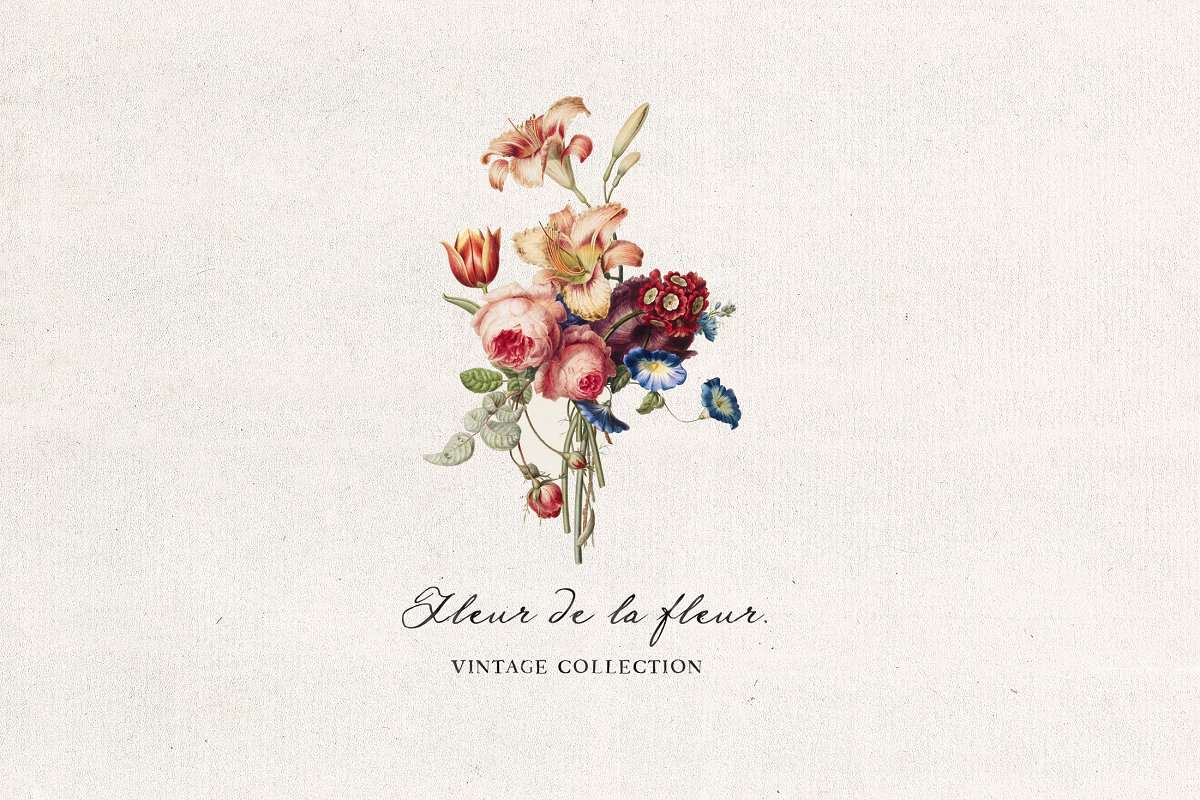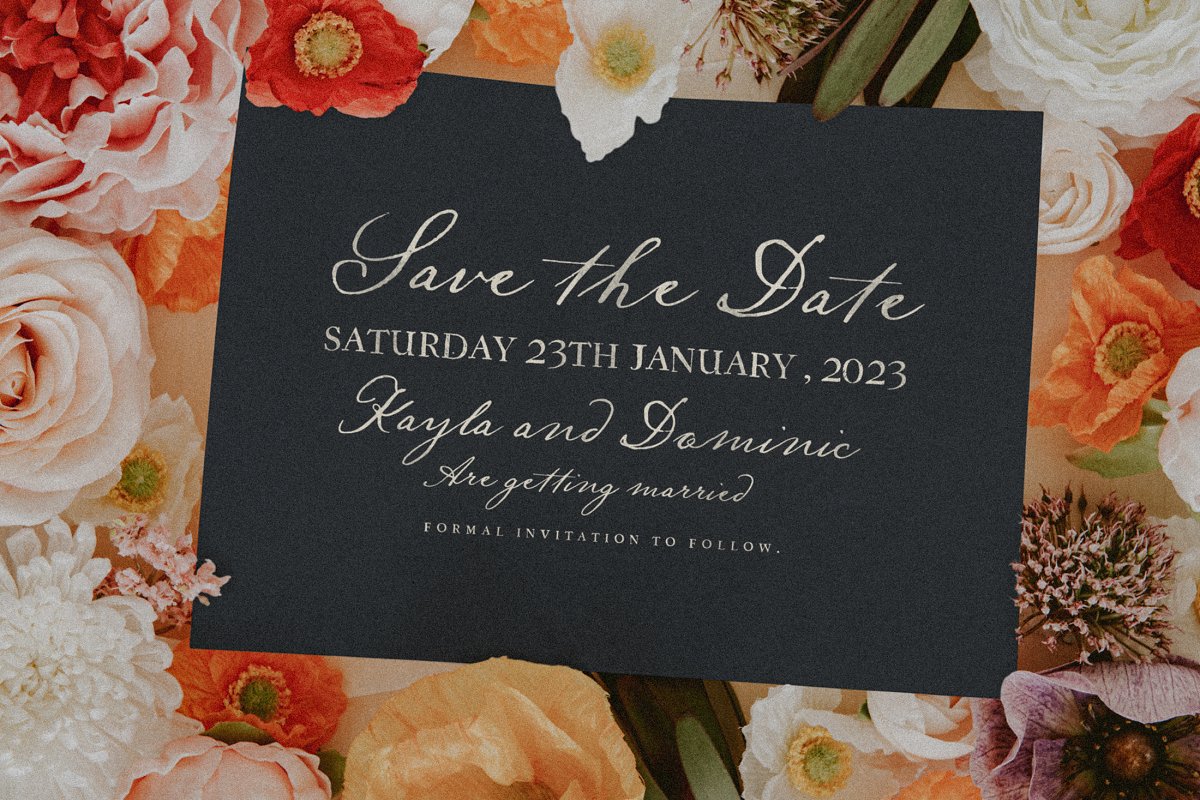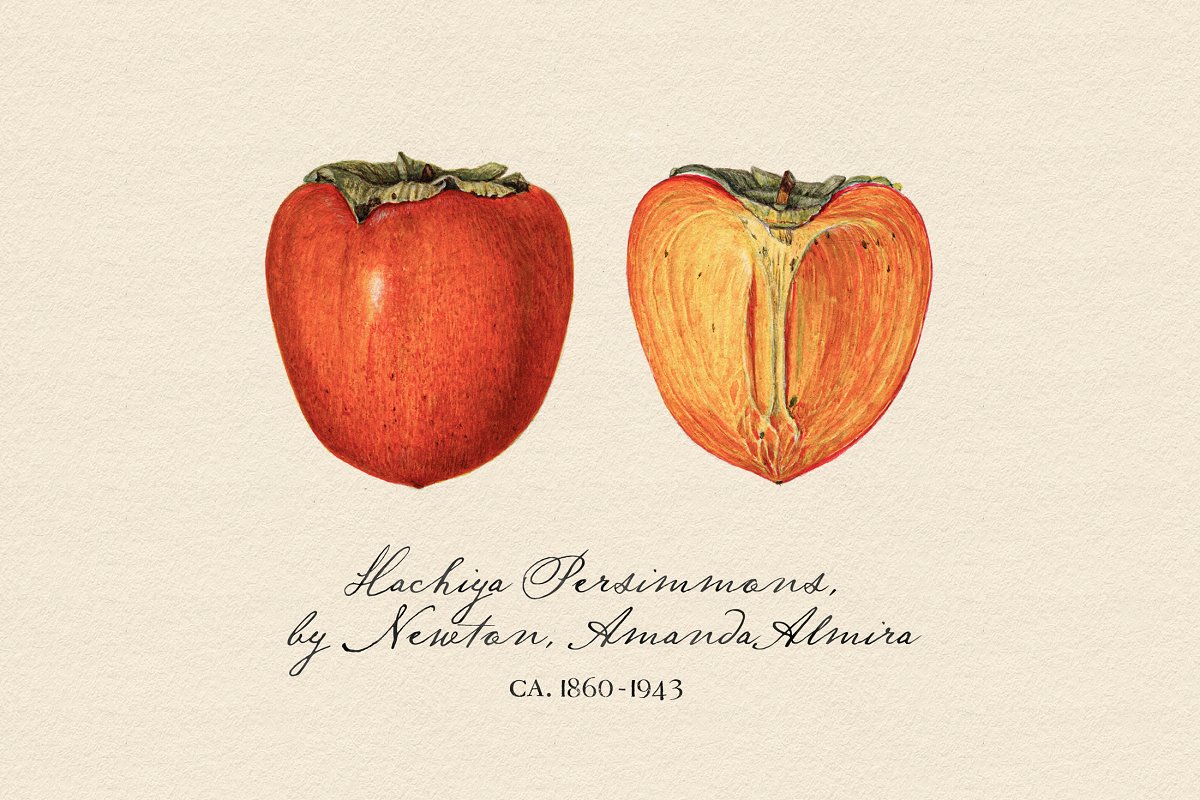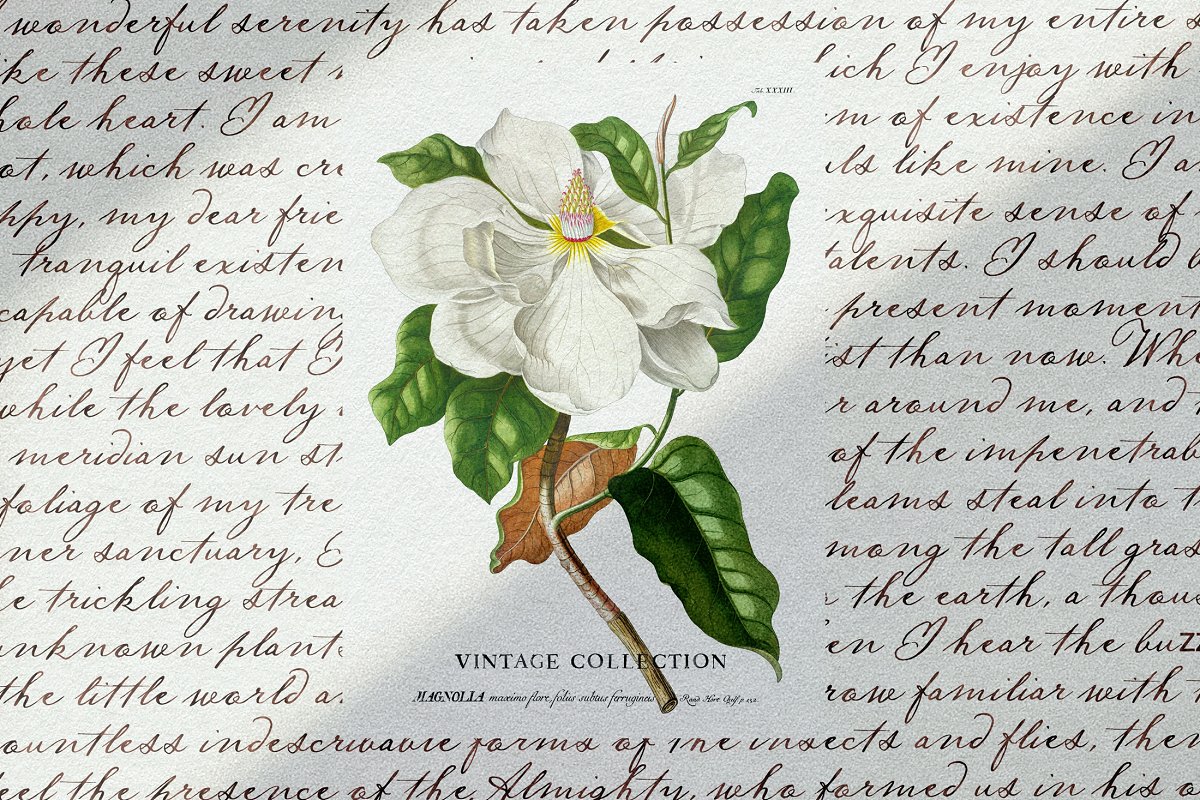
About the Nightingale Script Font
Say hello to Nightingale Script – an intentionally imperfect, antique script based on old manuscripts, and handwritten notes from an era long ago, Emulating beautiful penmanship, it’s perfect for adding a romantic old-world feel, If you are looking for the alternate ‘t’, ‘y’ or bonus ligatures – you can find it in the OpenType features :)The font it is paired with is Apothecary Serif – also in the shop